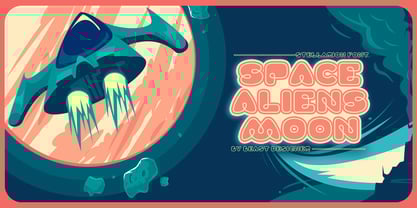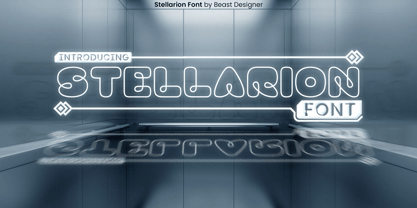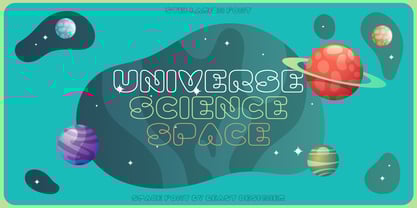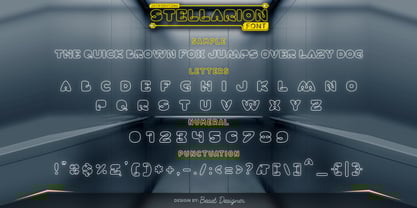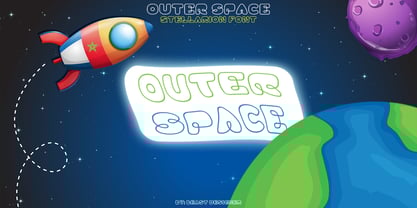
Stellarion
by Beast Designer
The Stellarion Font Family was designed by Mohammed Lamjidi and published by Beast Designer. Stellarion contains 1 styles.
Stellarion Font is a futuristic, bold outline font inspired by space and technology.
Perfect for sci-fi titles, gaming, tech branding, and futuristic designs, it adds a sleek, high-tech feel to any project.
Elevate your visuals with Stellarion’s dynamic, space-age style! 🚀✨
Designers: Mohammed Lamjidi
Publisher: Beast Designer
Foundry: Beast Designer